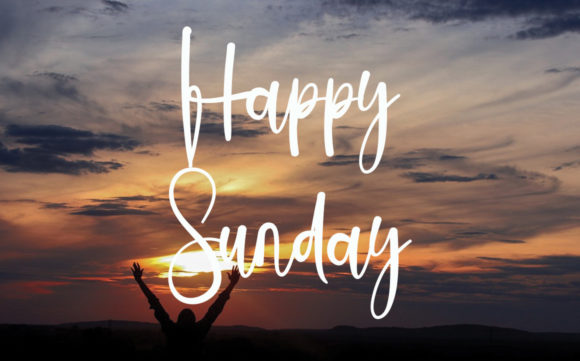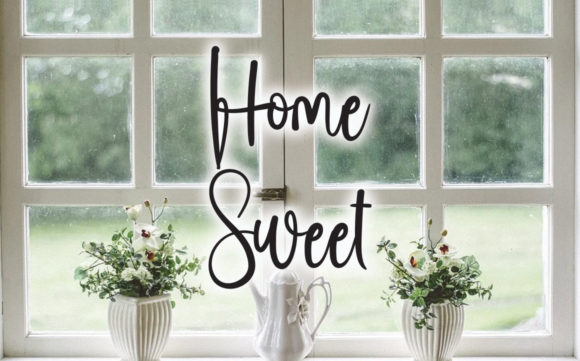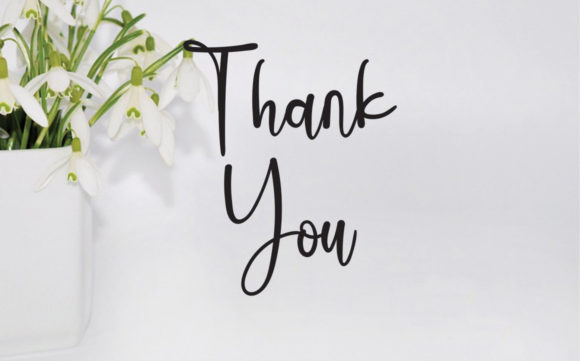
Unleash Your Inner Artist with Creative Writing Font
Have you ever sat down with a blank piece of paper, a pen in hand, and felt the rush of creativity flow through you? That’s the magic of writing, and with the right tools, it can be even more enchanting. For designers and artists, finding the perfect font can be a game-changer. That’s where Creative Writing Font comes in – a beautiful and flowing handwritten font that’s perfect for making a lasting impression.
Whether you’re designing a wedding invitation, creating a social media post, or crafting a product label, Creative Writing Font is a valuable asset in your toolkit. Its elegant, flowing lines and gentle curves make it an ideal choice for any project that requires impressive typography. By incorporating this font into your designs, you’ll add a touch of sophistication and creativity that will set your work apart from the rest.
Creative Writing Font Key Features
- Font Size: Available in 6 font sizes, ranging from 8pt to 48pt, ideal for various writing applications
- Resolution: Supports high-resolution displays, ensuring crisp and clear text at 300 DPI (dots per inch)
- Unique Character Set: Includes a wide range of creative writing symbols, such as sparkles, stars, and arrows, to enhance writing expression
- Script and Handwriting Styles: Offers various script and handwriting styles to mimic different writing techniques, adding a personal touch to writing
- Multi-Language Support: Compatible with multiple languages, including English, Spanish, French, and more, making it a versatile writing font
Designer Review: Creative Writing Font
As a designer, I was excited to try out the Creative Writing Font. Here’s my honest review.
- The font has a unique, handwritten feel that adds a touch of personality to any text.
- The font is highly legible, making it perfect for body text or quotes.
- The font comes in a range of weights and styles, allowing for a lot of creative flexibility.
- The font can be a bit too playful for formal or corporate designs.
- The font’s spacing can be inconsistent in certain words or sentences.
- The font may not be the best choice for small text sizes due to its irregular letterforms.
Overall, I think the Creative Writing Font is a great addition to any designer’s toolkit. While it may have some limitations, its unique personality and versatility make it a great choice for a wide range of projects. With a little bit of tweaking and adjustment, this font can add a lot of creativity and flair to your designs.
The Creative Writing Font is ideal for:
- Book covers and author websites
- Quote graphics and inspirational posters
- Blog posts and article headings
For best results, pair the Creative Writing Font with a clean and minimalist design to let the text shine.
Lobster is a cursive script font that is often used for titles, headings, and other display text. It has a more elegant and sophisticated feel compared to Creative Writing Font. Lobster is ideal for use in wedding invitations, advertising materials, and other creative projects.
Comparison to Creative Writing Font: Lobster is more elegant and less playful than Creative Writing Font, making it suitable for a wider range of applications.
Pacifico is a beautiful, elegant script font that is perfect for use in titles, headings, and body text. It has a warm, inviting feel that makes it ideal for use in creative projects such as magazines, brochures, and websites.
Comparison to Creative Writing Font: Pacifico is more elegant and refined than Creative Writing Font, making it suitable for use in a wider range of applications.
Great Vibes is a modern script font that is perfect for use in titles, headings, and body text. It has a fun, energetic feel that makes it ideal for use in creative projects such as advertising materials, websites, and social media.
Comparison to Creative Writing Font: Great Vibes is more modern and energetic than Creative Writing Font, making it suitable for use in a wider range of applications.